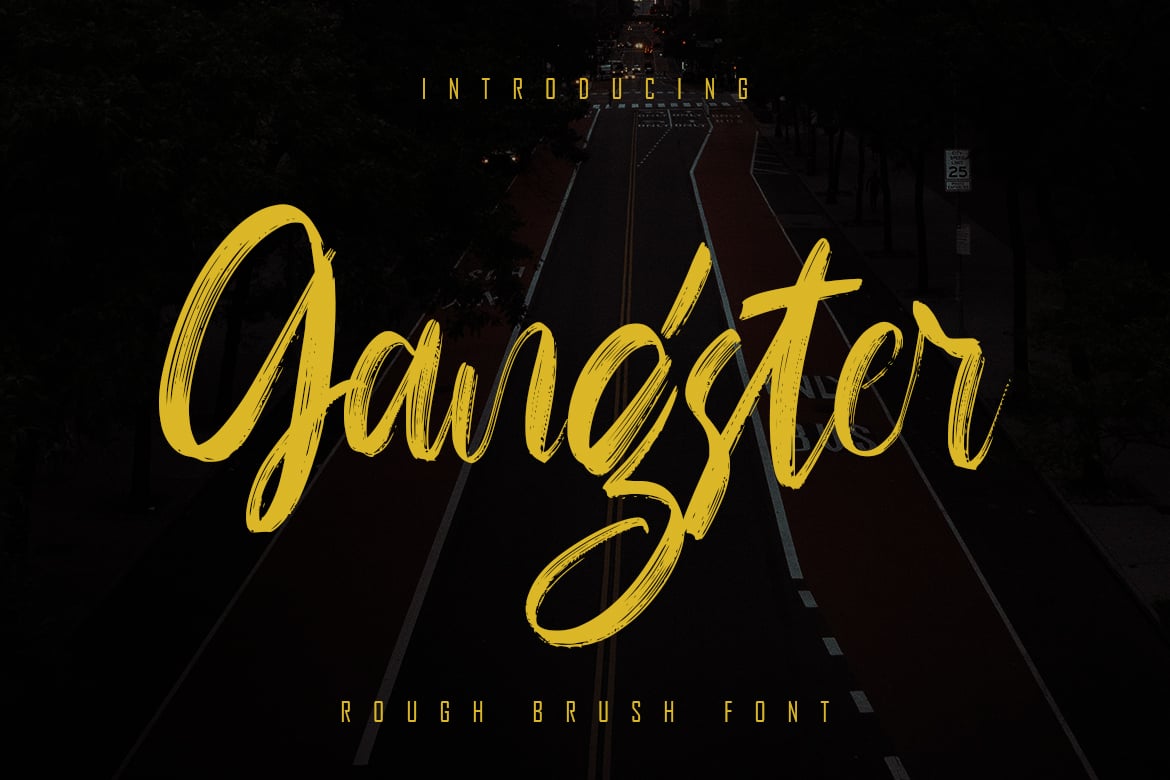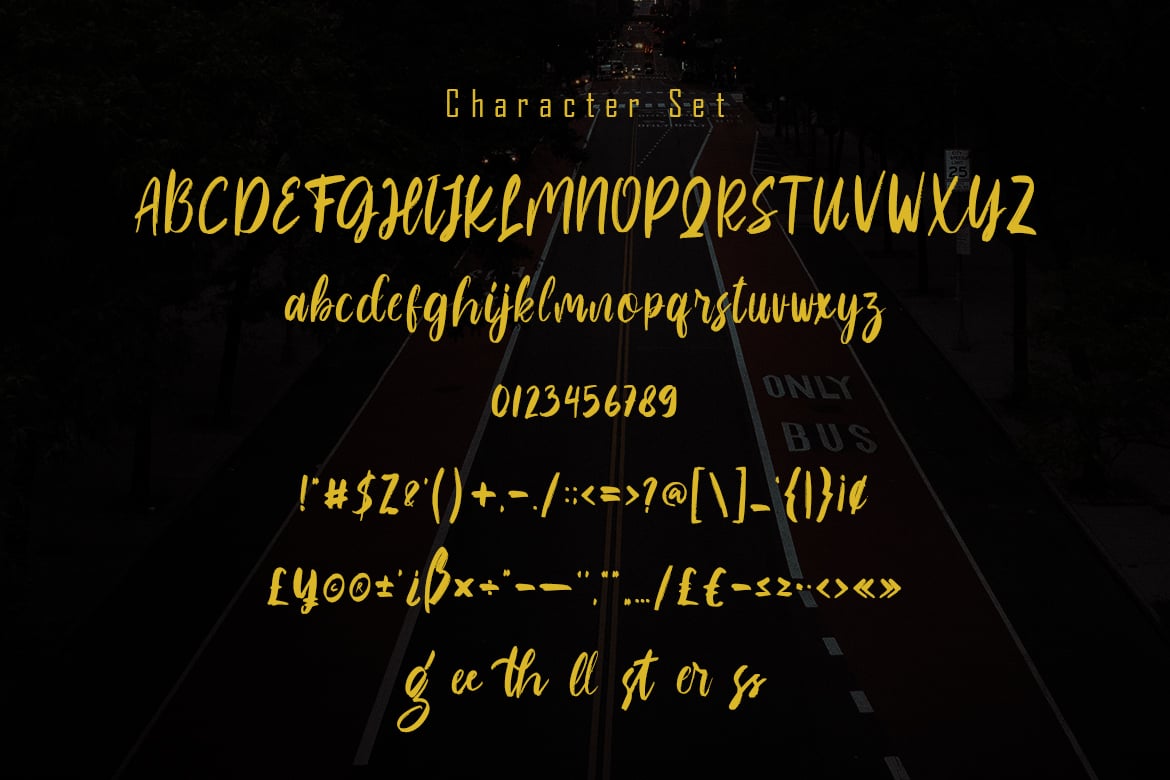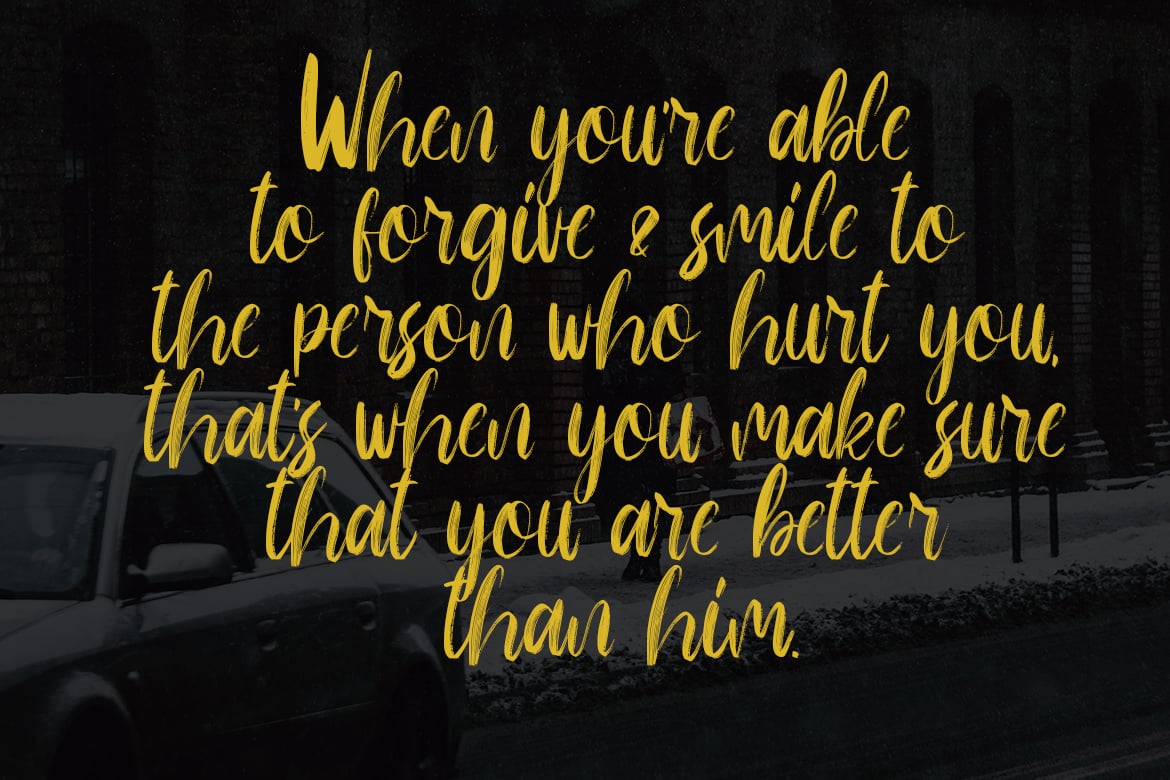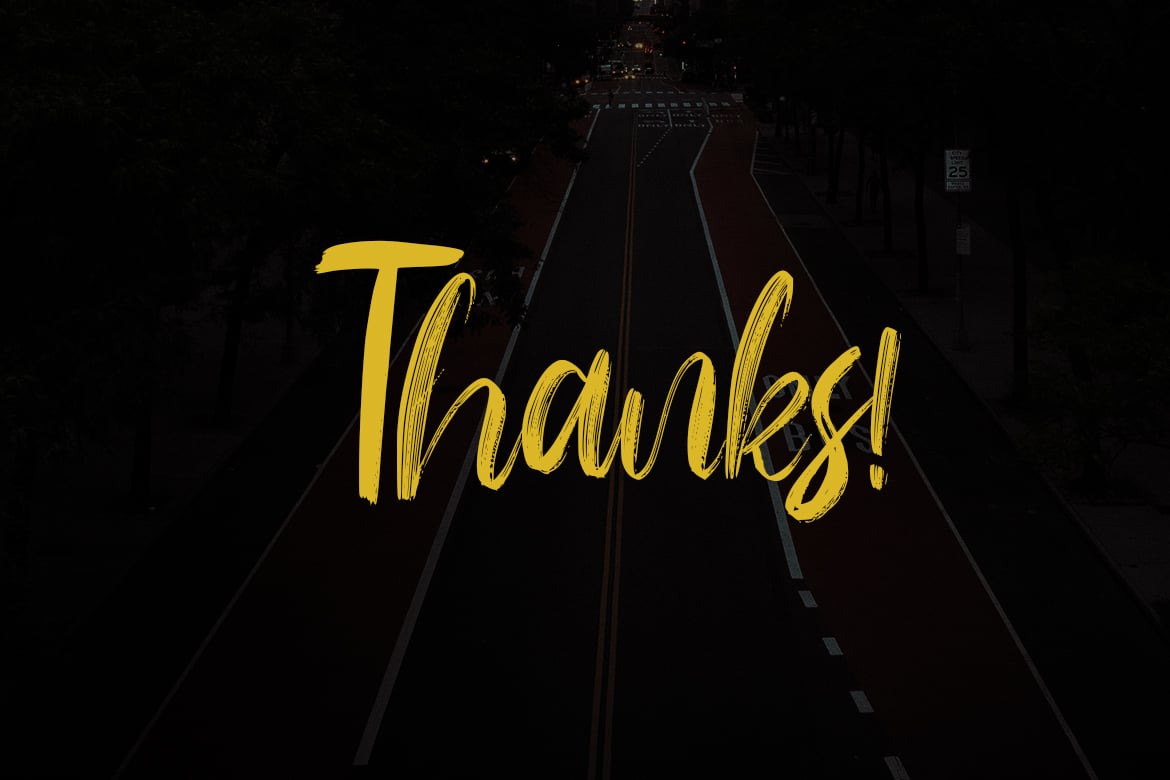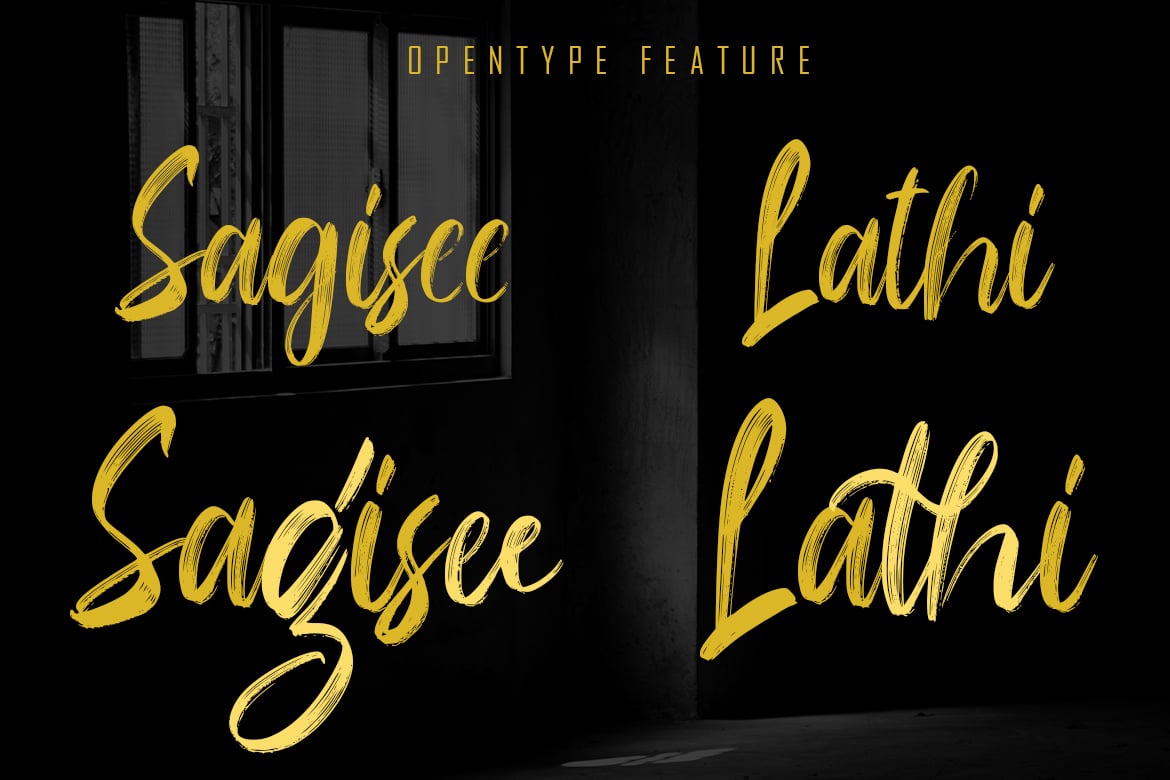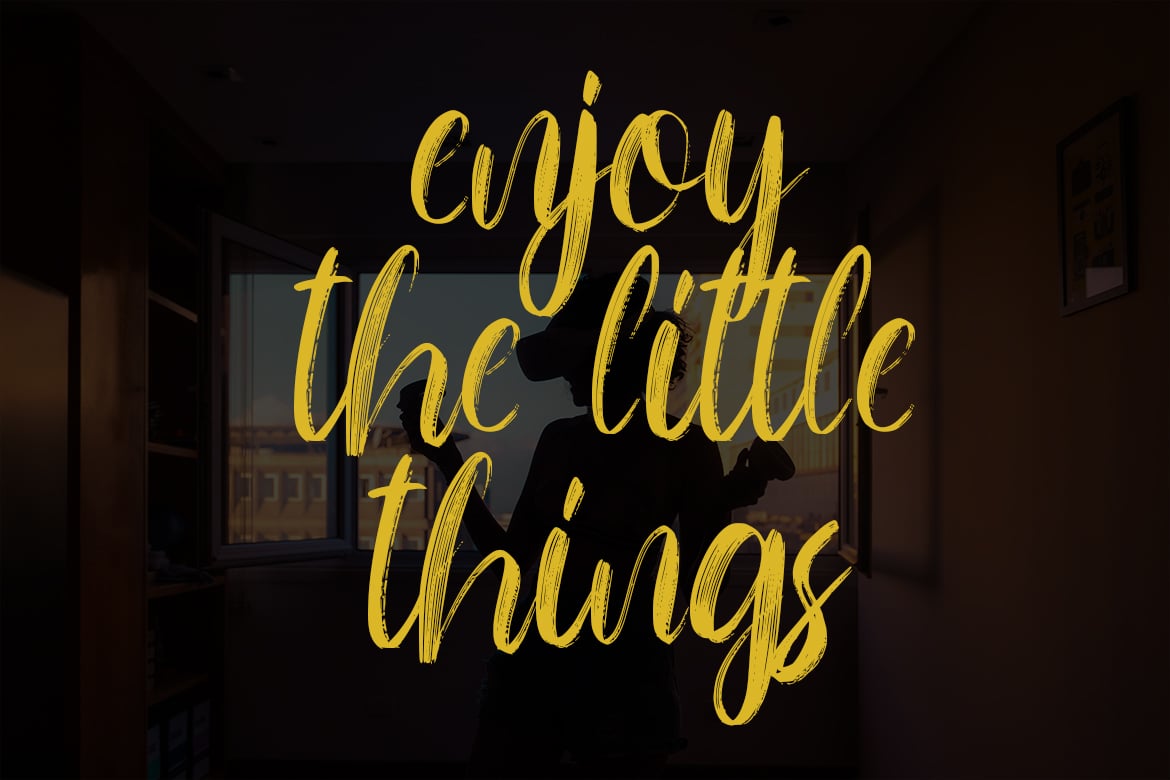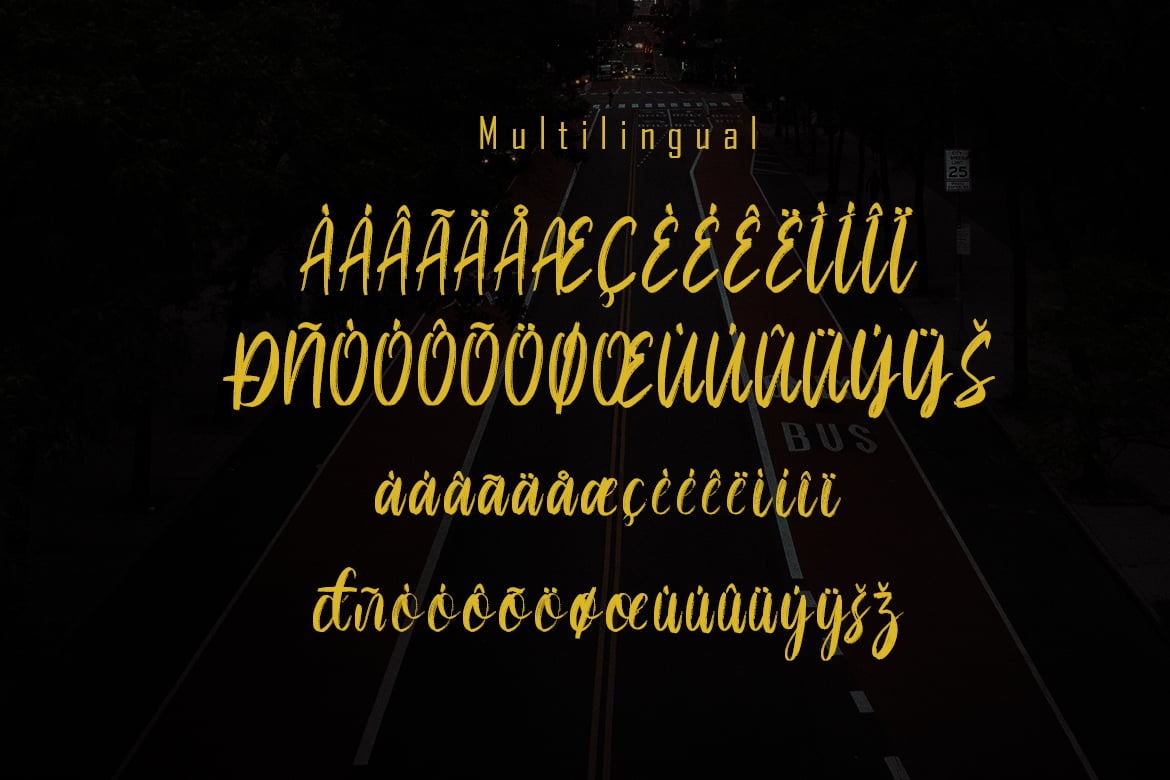
Gangster – Rough Brush Font
Gangster Handwritten font Equipped with uppercase, lowercase letters, numbers, punctuation, and so many variations on each character including alternative opentype such as Standard Ligature. Perfect for use for Logotype, Letterhead, Posters, Clothing Designs, Labels, quotes and more